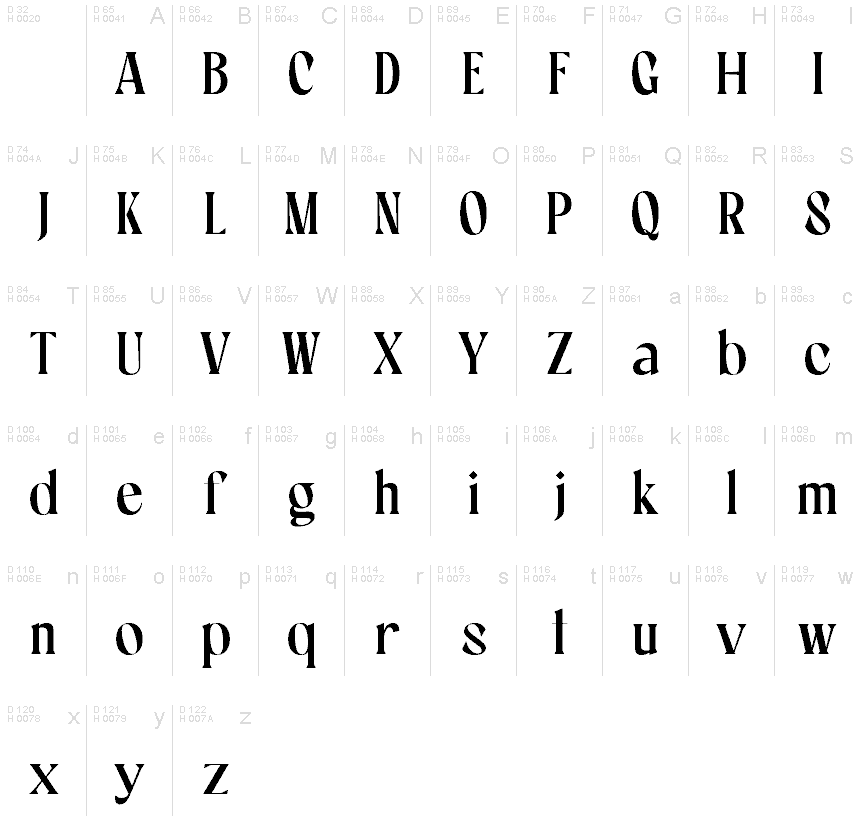
MagelyFree-Regular
Magely font by Craft Supply Co. is a condensed yet elegant serif with high contrast and a refined aesthetic. Instantly sophisticated, its style finds inspiration in historic Neoclassical designs, reaffirmed with a contemporary twist that fits modern applications.
Magely Free